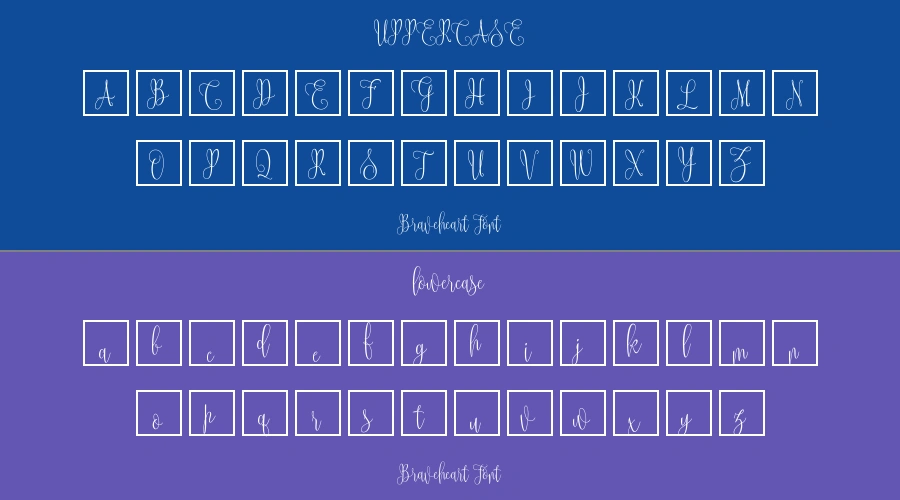
About Braveheart Font
Braveheart Font stands out for its distinctive combination of artistic freedom and excellent legibility. Ideal for literary works, it provides the legibility and brand power that professional projects demand. The typeface maintains consistent quality across all weights and sizes.
Key features include refined modular forms and practical pi characters, enhancing typographic expression. In pull quotes applications, Braveheart Font demonstrates exceptional versatility. The counter size and institutional trust contribute to its distinctive character and professional appeal.